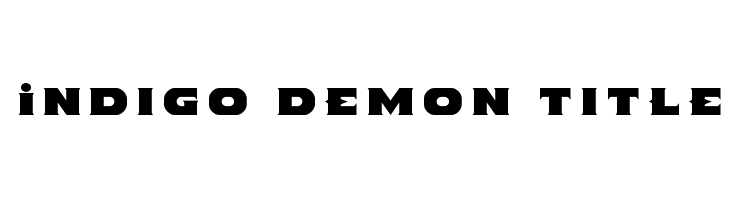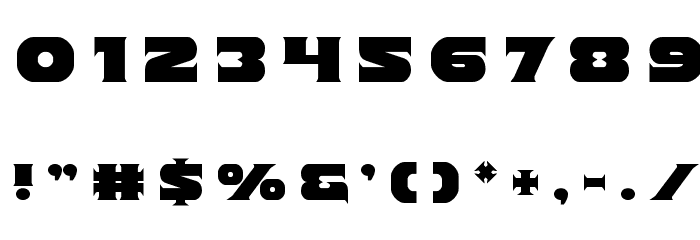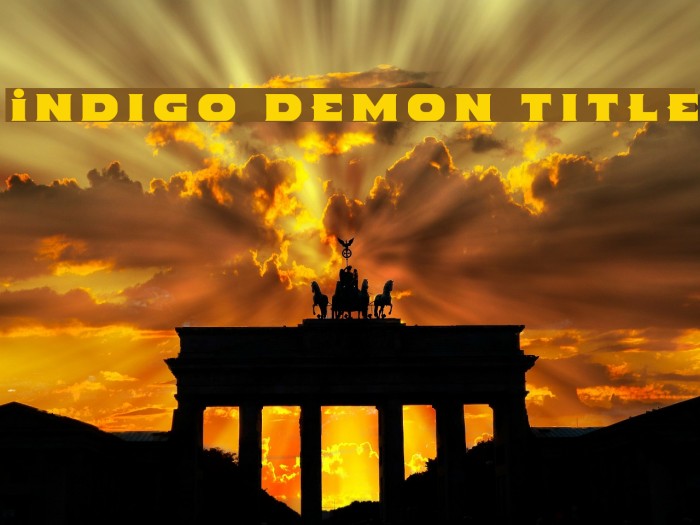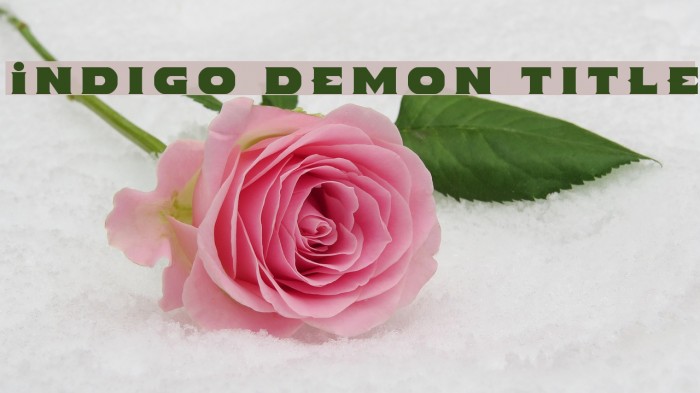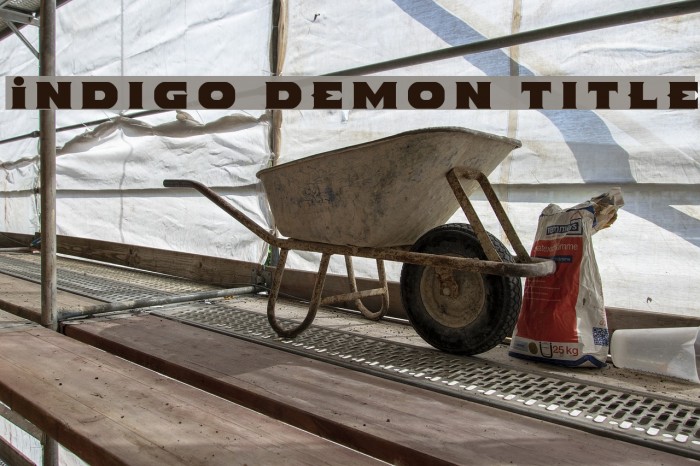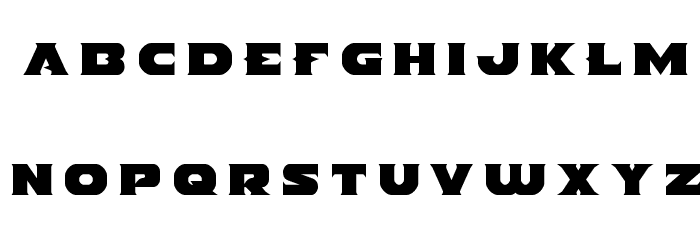
Indigo Demon Title Font
Indigo Demon Title Description
This font features a bold and striking design with sharp, angular edges and a futuristic aesthetic. The characters are wide and imposing, creating a sense of strength and power. Each letter is crafted with unique cutouts and geometric shapes, giving it a distinct and edgy look. The numbers and special characters follow the same bold style, ensuring consistency across all elements. This font is ideal for projects that require a modern and impactful visual presence.
A bold, angular font with a futuristic and edgy design from Modern fonts.
- Proposed Projects: Perfect for sci-fi movie posters, video game titles, and branding for tech companies.
- Width: Expanded